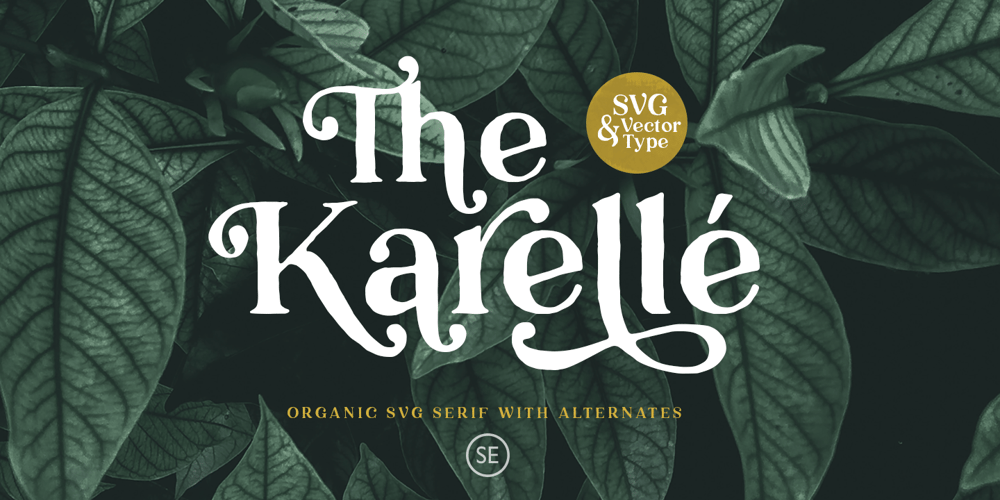
Karelle
Karelle font
Karelle Font Family was designed by Sarid Ezra and published by Sarid Ezra. Karelle contains 1 styles and family package options. Karelle is handmade Font with natural feels. This unique font also included a bunch of alternates. Number, symbol, and another punctuation also included in this fonts. Support multilingual and already PUA encoded! Let this font make your project even more raw and natural!